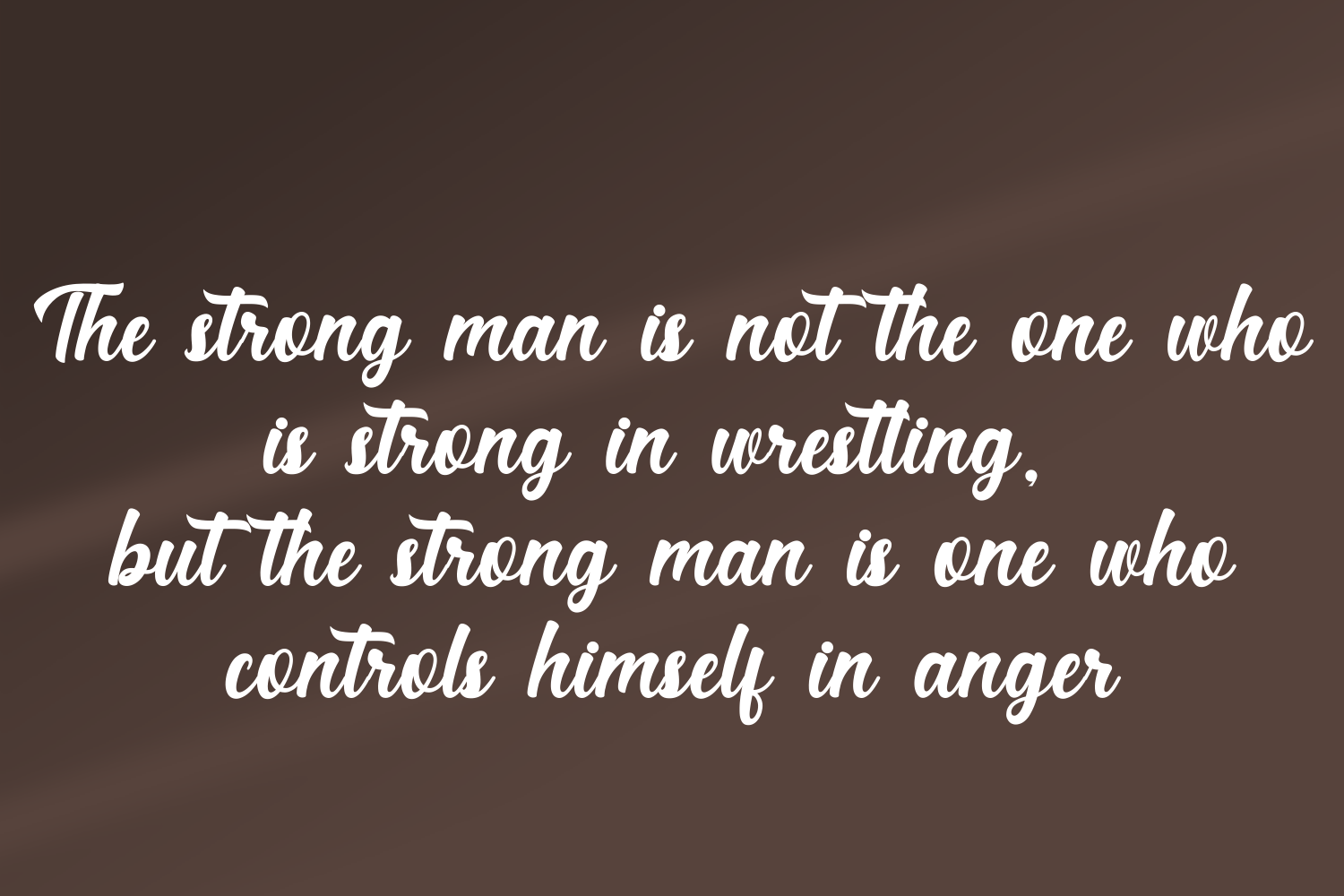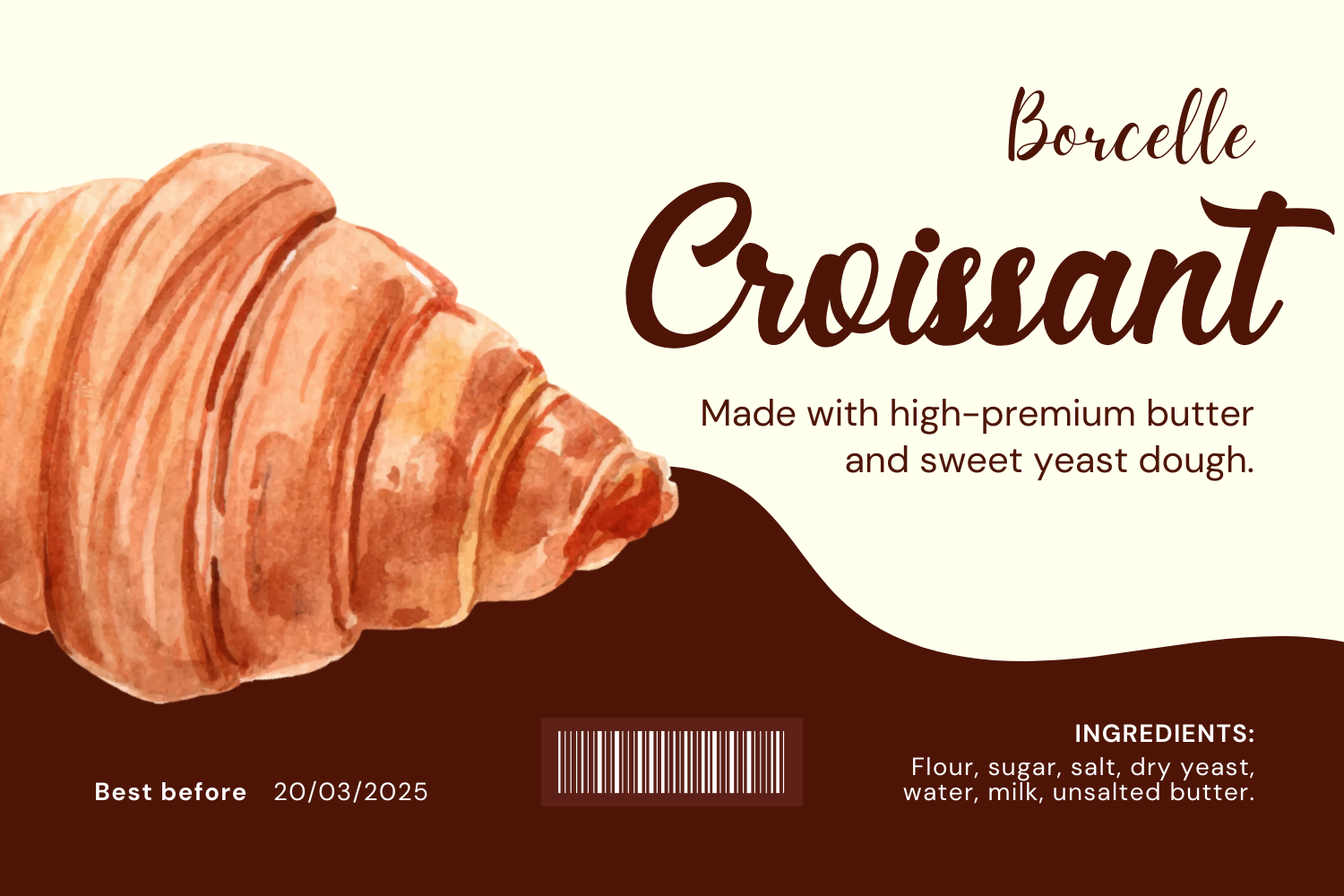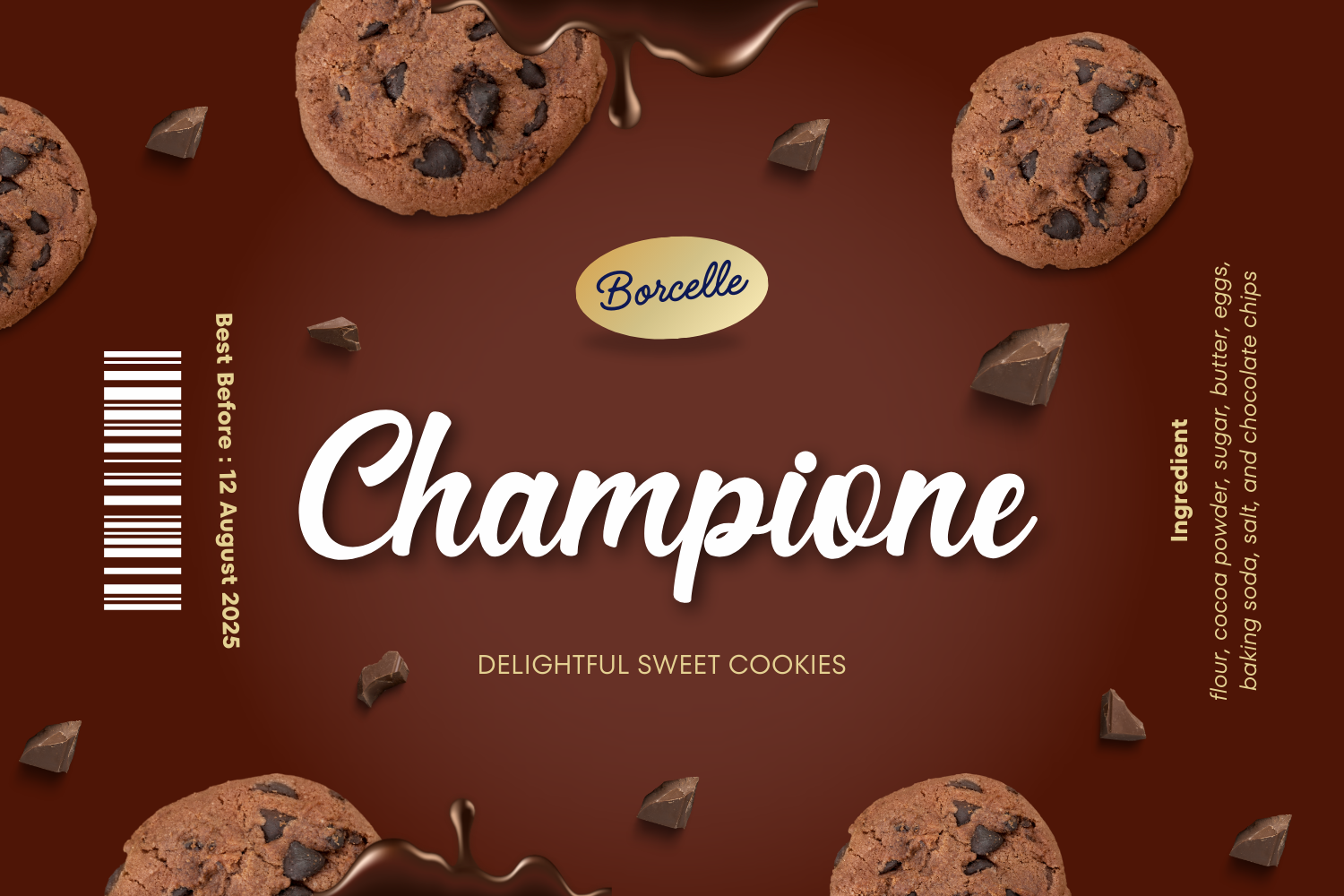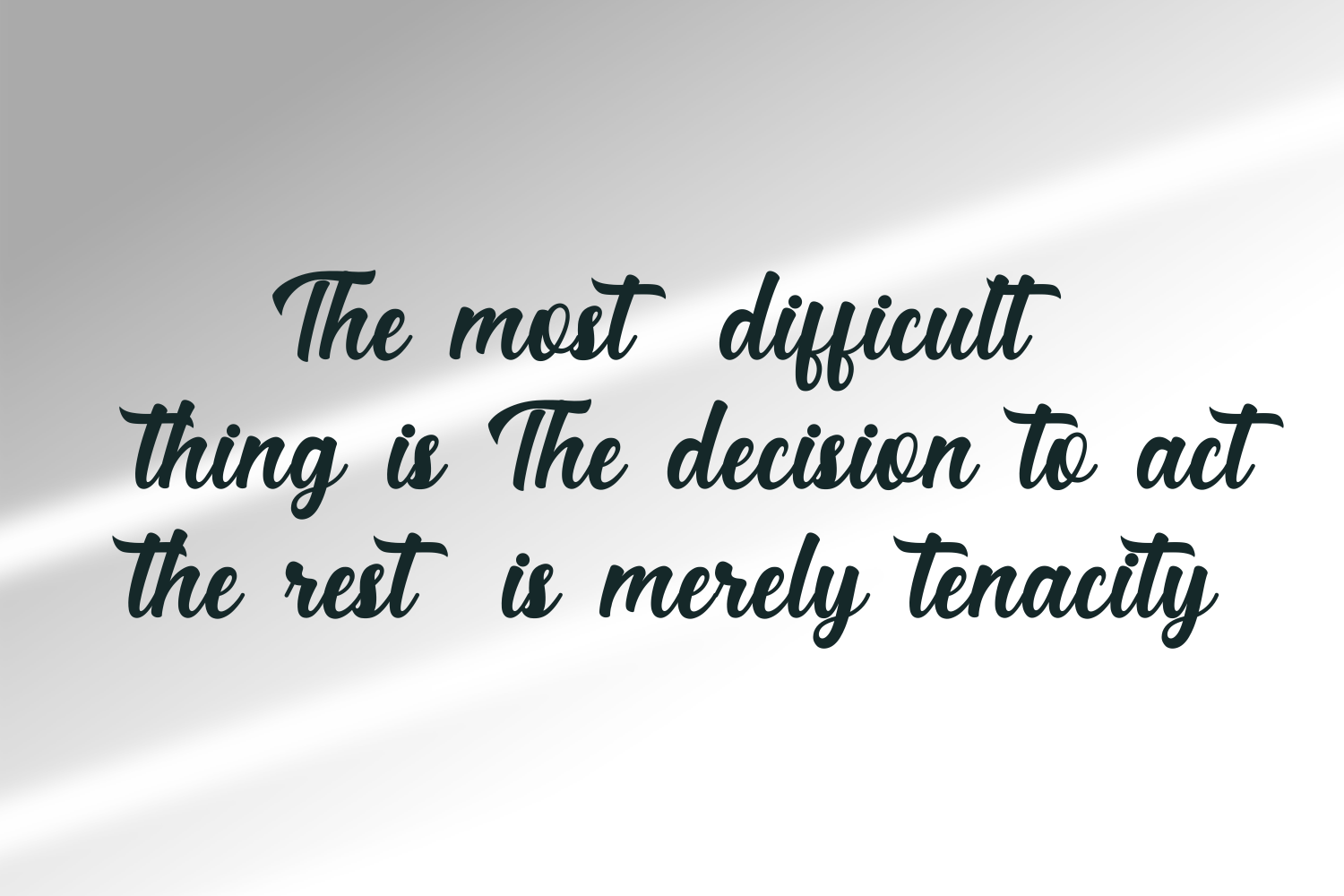
Kintagina Font
Kintagina is a playful and quirky handwritten font with a bouncy, irregular baseline. Its friendly and approachable style makes it perfect for children’s designs, greeting cards, and casual branding. Kintagina adds a touch of fun and whimsy to any project, while maintaining a clear and legible form. Its charming imperfections give it a unique and handcrafted feel, ideal for projects seeking a personal touch.